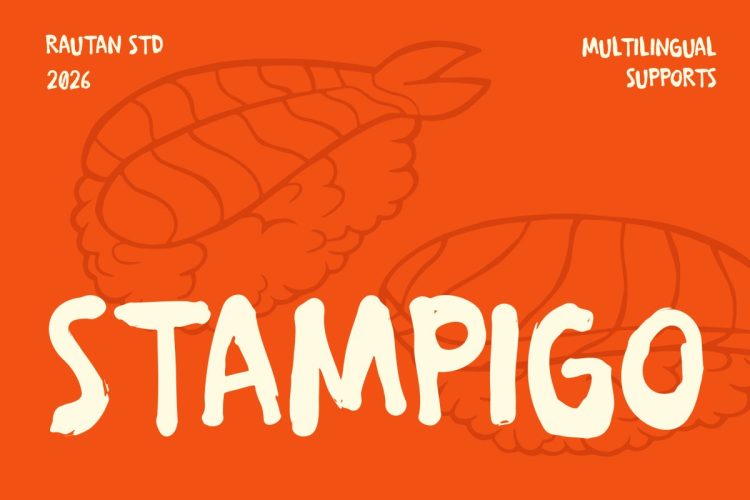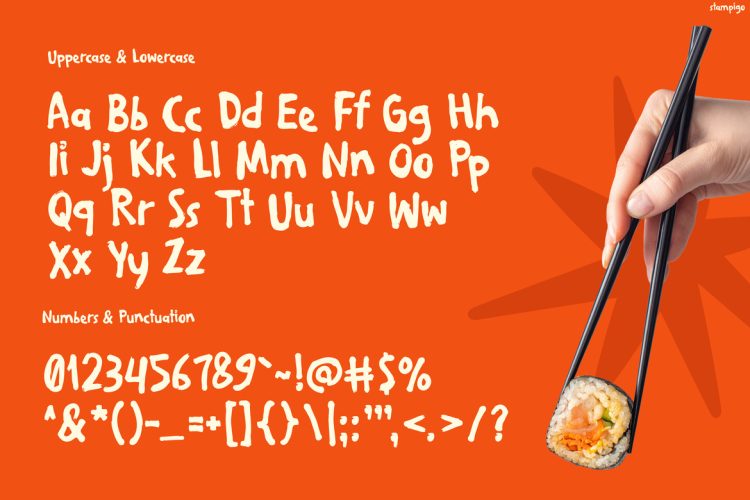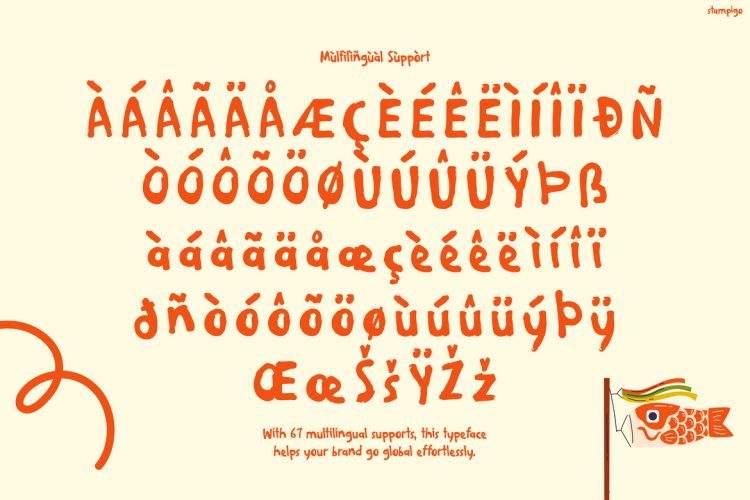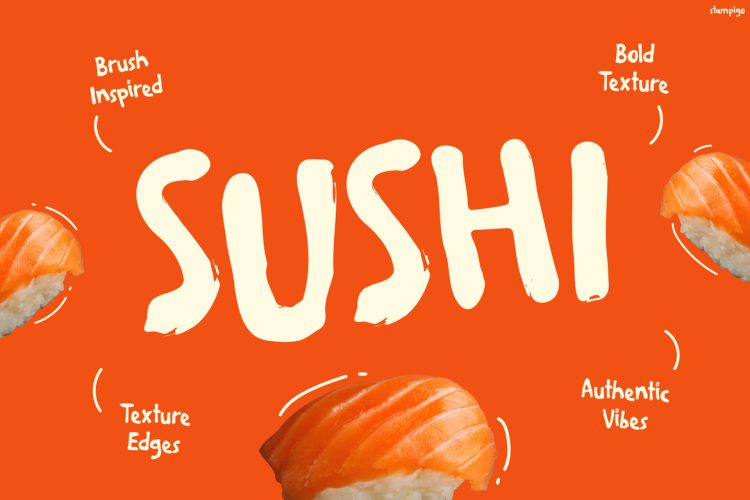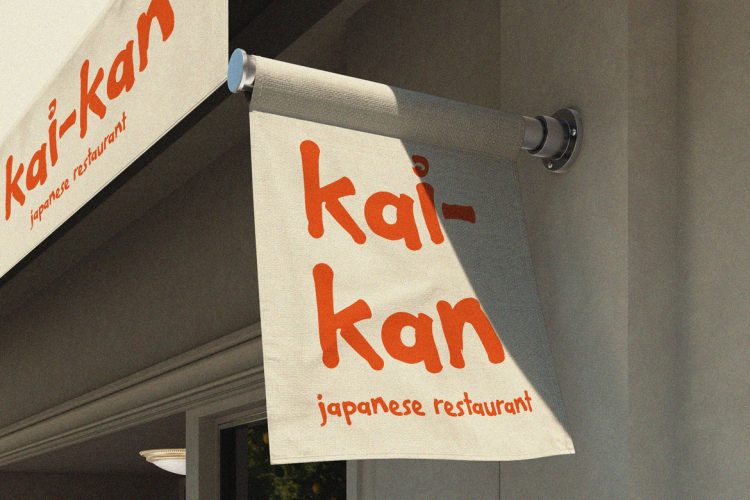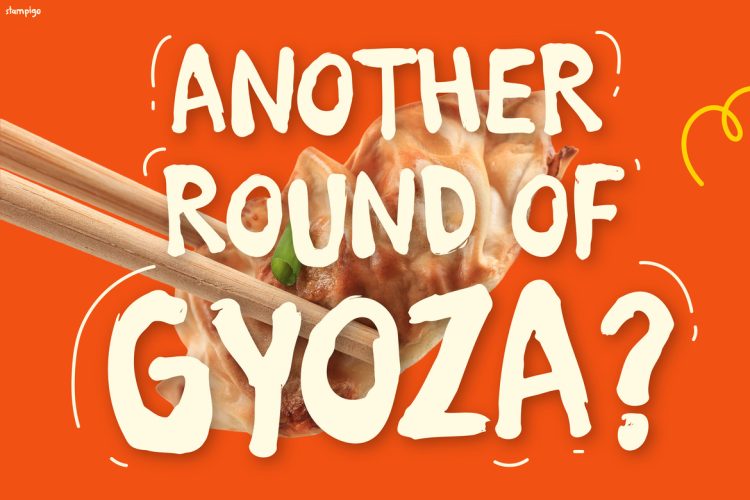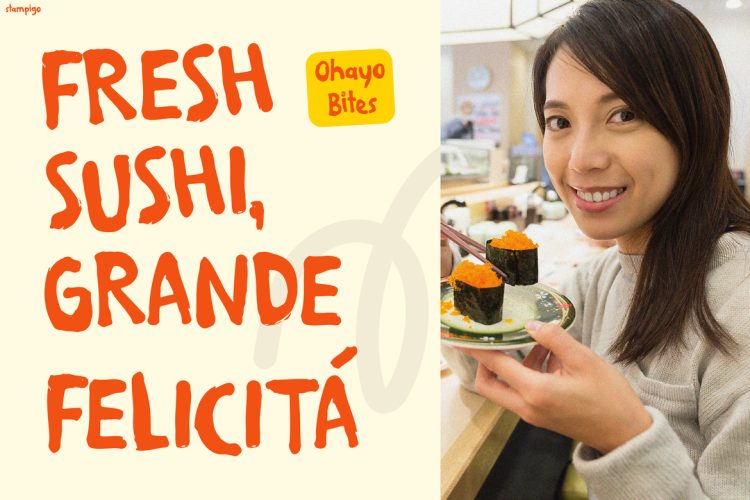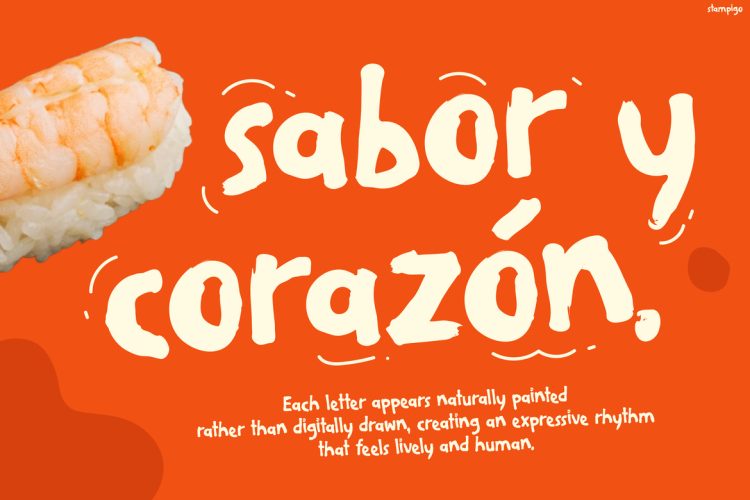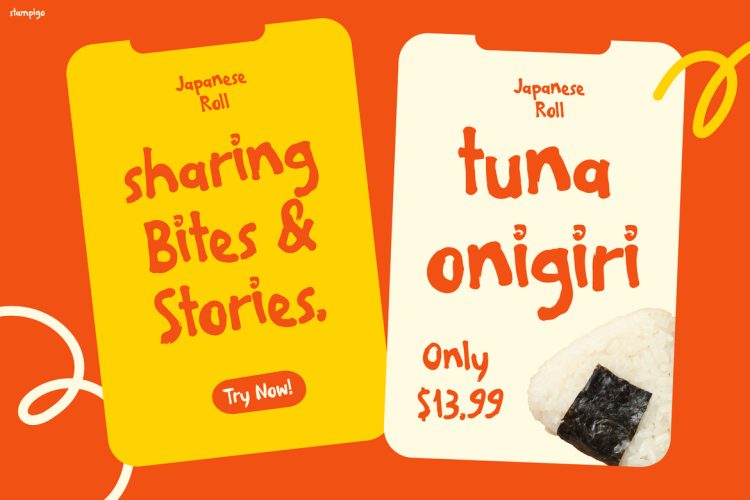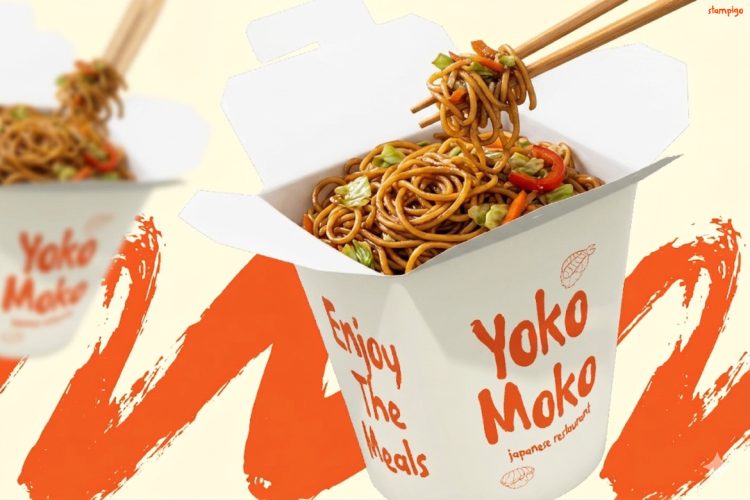
Japanese Font Stampigo โ Authentic Japanese Brush Display Font
Japanese Font Stampigo brings the spirit of traditional Japanese brush lettering into a bold and expressive display font. Inspired by authentic sushi branding and handcrafted ink strokes, this font instantly attracts attention. Moreover, its rough brush textures and organic edges create a genuine handmade appearance. As a result, every design feels energetic, memorable, and full of character. At the same time, the letterforms remain highly readable for professional use. Furthermore, Stampigo supports 67 languages, allowing designers to create projects for global audiences with ease.
Why You’ll Love It
Japanese Font Stampigo blends artistic brush aesthetics with commercial versatility. Not only does it offer a strong visual impact, but it also adds warmth and authenticity to every design. In addition, the handcrafted details help brands create a more personal connection with their audience. Whether you are designing menus, packaging, posters, or social media content, this font delivers outstanding results. Likewise, it performs beautifully across both print and digital applications. Most importantly, it helps your message stand out in a crowded marketplace.
Japanese Font Stampigo Perfect For
- Japanese restaurants and sushi bars
- Asian food packaging and branding
- Street food vendors and food trucks
- Cafรฉ menus and promotional campaigns
- Posters, flyers, and event promotions
- Social media graphics and advertisements
- YouTube thumbnails and merchandise
- Creative logos and brand identity projects
Elevate Your Next Project
If you want to create authentic Japanese-inspired designs, Stampigo is an excellent choice. Furthermore, its handcrafted brush style adds instant personality to any layout. Meanwhile, its clear readability ensures that your message remains effective. Therefore, designers, marketers, and business owners can confidently use it across various projects. Finally, with its unique character, multilingual support, and professional quality, Stampigo is ready to transform your creative ideas into attention-grabbing designs that customers will remember.